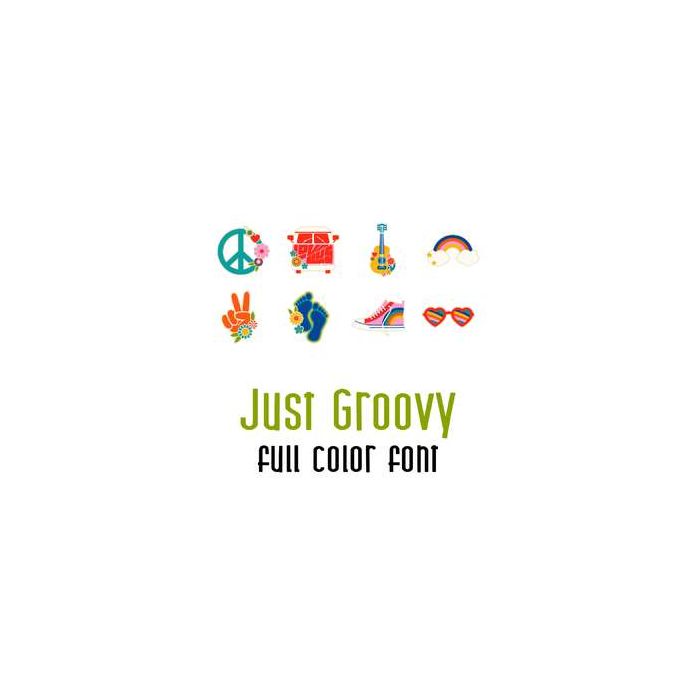
This adorable full color doodlebat font features fun groovy styled seventies icons. Perfect for cards, crafts, gifts, decor, scrap book pages, planner stickers and more!